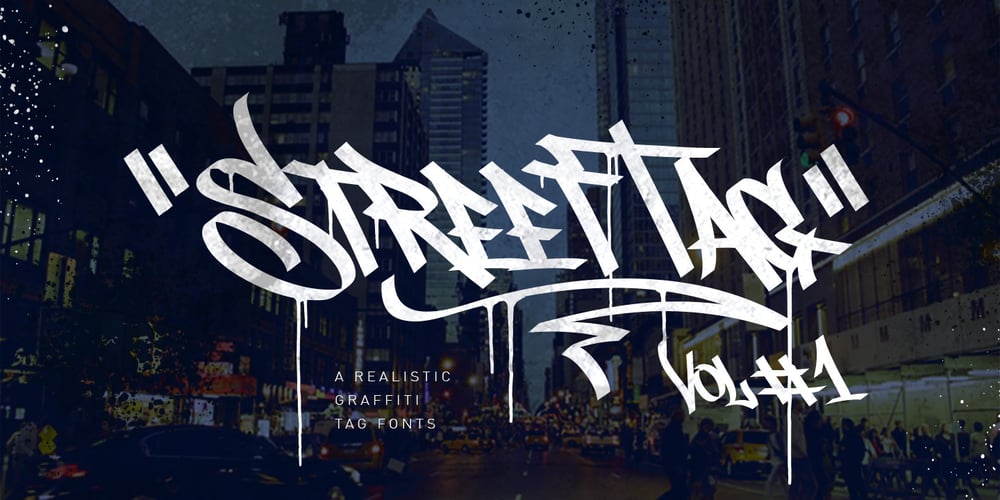
Street Tag vol1 Font Family was designed by Cipto Bagus Prakarso and published by Tomatstudio. Street Tag vol1 contains 1 styles and family package options. Street Tag vol1 is inspired from graffiti tag in urban areas in Jakarta, i also draw graffiti, tag and throw up since high school. This is originally my style, inspired from some my favourite graffiti artist, my tag style is not so tidy and i think you guys should adjust the kerning manually again, because it’s impossible to adjust them to be tidy.I also create special letter “G”,“Y” and “T” in vector base, so you can edit the path as you like, combine with the original font, you can see the sample.